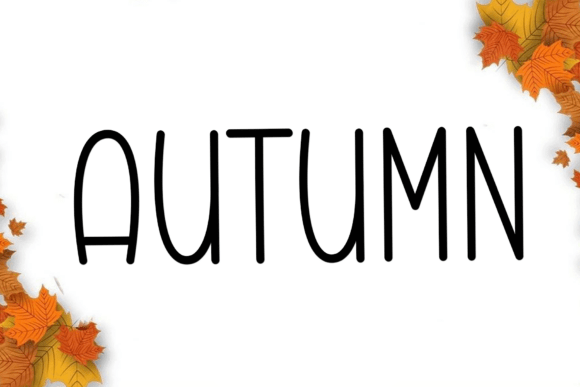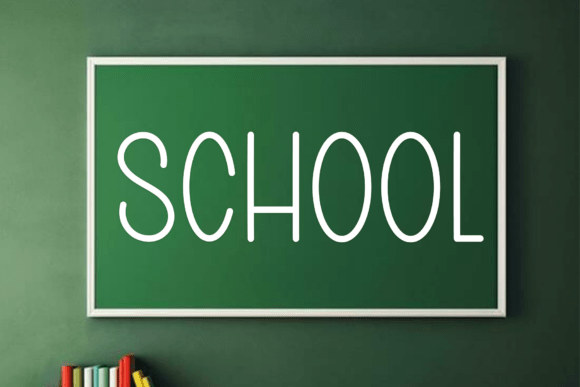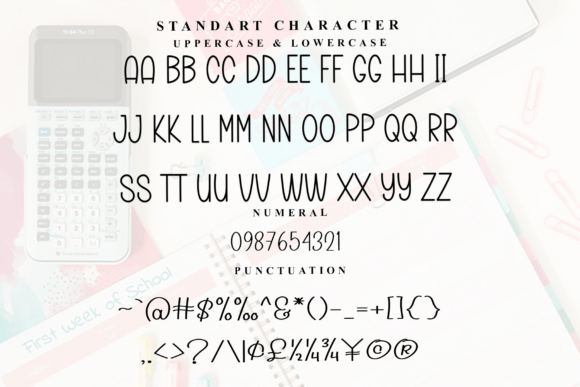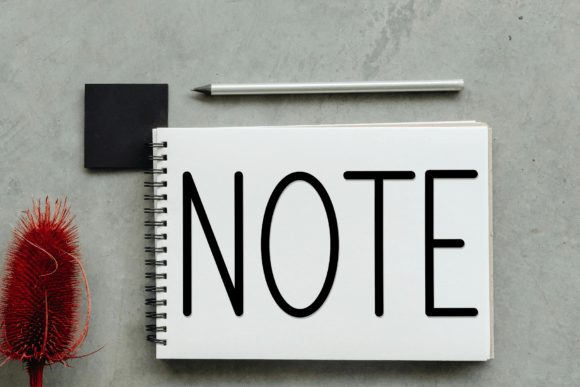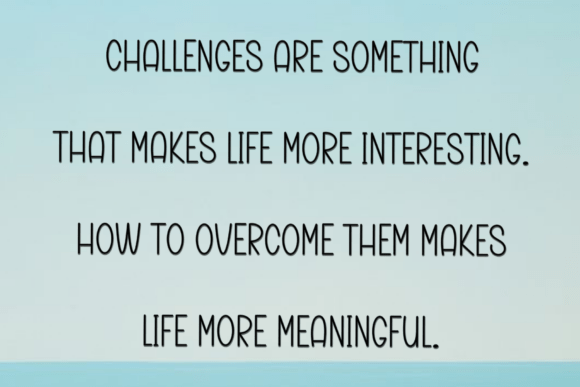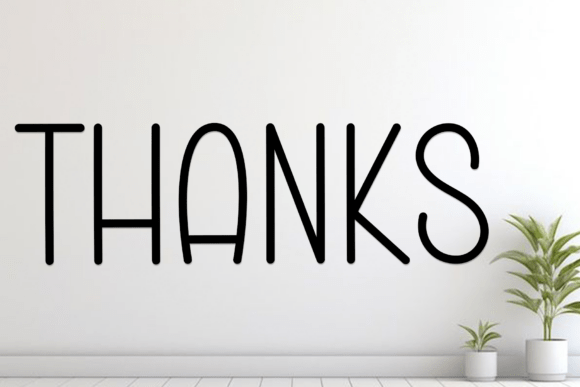
Discovering the Perfect Companions for Your Creative Journeys
Who among us hasn’t spent hours scribbling away in a notebook, lost in a world of ideas and imagination? As creatives, we often find ourselves in moments like these, where the right tools can make all the difference in bringing our visions to life. And for designers, the right font can be just the thing to elevate their projects and give them that extra oomph.
Enter the Backpack Font, a charming and clean handmade typeface designed to bring a touch of casual sophistication to any project. With its tall, narrow structure and rounded terminals, this font is perfect for journals, school branding, packaging, or anything that needs a soft yet smart personality. Whether you’re a designer looking for a reliable companion or a small business owner seeking to establish a consistent brand voice, the Backpack Font is an invaluable asset in your creative arsenal.
Key Features of Backpack Font
- Unique Characteristics: Backpack Font is a modern sans-serif font designed for digital use, featuring a friendly and approachable feel.
- Font Size: Offers a range of font sizes, from 12pt to 72pt, to cater to various design needs.
- Resolution: Supports high-resolution displays, making it ideal for use in digital media, such as websites, mobile apps, and e-books.
- Font Styles: Includes 6 font styles: Regular, Light, Medium, Bold, Heavy, and Black, providing flexibility for designers to choose the perfect fit for their project.
- Language Support: Supports over 200 languages, making it a versatile font for global design projects.
Backpack Font Review
Overall, I was excited to dive into Backpack Font and see what it had to offer. Here are my honest thoughts:
- Unique aesthetic: Backpack Font has a distinct, quirky feel that sets it apart from more traditional fonts. I appreciate its willingness to take risks and try something new.
- High-quality vectors: The font’s vector files are crisp and clean, making it easy to scale up or down without losing any details.
- Great for creative projects: Backpack Font is perfect for designers and artists looking to add a bit of whimsy to their work.
- Limited legibility: While the font is visually striking, it can be difficult to read at smaller sizes or in certain contexts. This might limit its use in applications where readability is a top priority.
- No comprehensive character set: Backpack Font is missing some common characters and symbols, which could be a problem for designers who need to include a wide range of glyphs in their work.
Overall, I think Backpack Font is a great choice for designers who want to add some personality to their projects. While it may not be suitable for every application, it’s a solid option for those who value a unique aesthetic and don’t mind a few limitations.
Tips for Getting the Most Out of Backpack Font
For the best results, use Backpack Font in conjunction with bold or italic text to create a visually appealing contrast. Experiment with different font sizes and colors to create a unique and eye-catching design. Additionally, consider using Backpack Font in conjunction with other fonts to create a dynamic and engaging visual hierarchy.
Backpack Font is ideal for creating a playful and youthful aesthetic in designs such as:
– Blog posts and articles
– Marketing materials and flyers
– Children’s educational materials
Alternatives to Backpack Font for Designers
Playfair Display is a luxurious and elegant script font, perfect for creating a sophisticated and high-end feel in your designs. It’s ideal for use in headings, titles, and other prominent text elements. Playfair Display is similar to Backpack Font in its ornate and stylish nature, but it has a more refined and classic aesthetic.
Lobster is a modern and trendy script font, great for adding a touch of whimsy and personality to your designs. It’s perfect for use in headings, titles, and other text elements where you want to convey a sense of fun and playfulness. Compared to Backpack Font, Lobster has a more relaxed and casual feel, making it ideal for creative and informal projects.